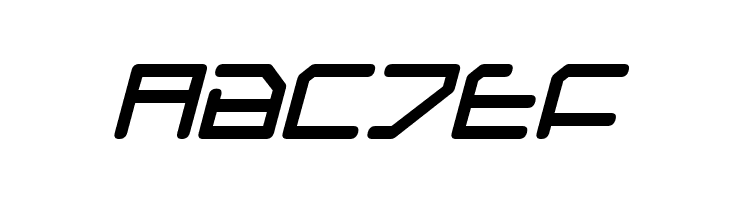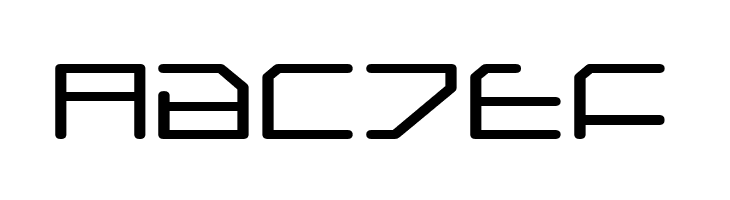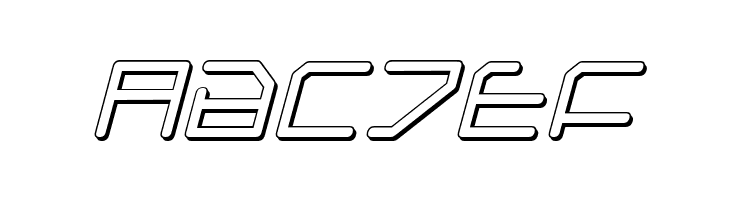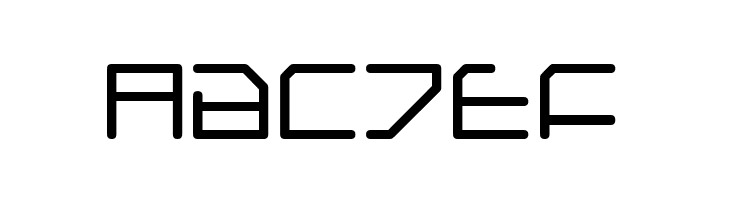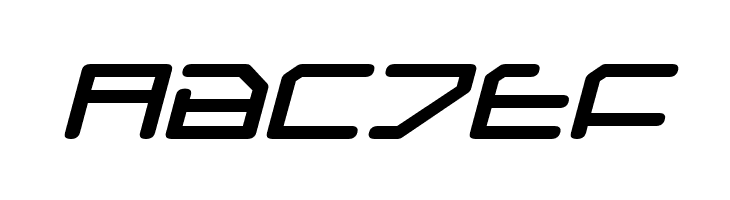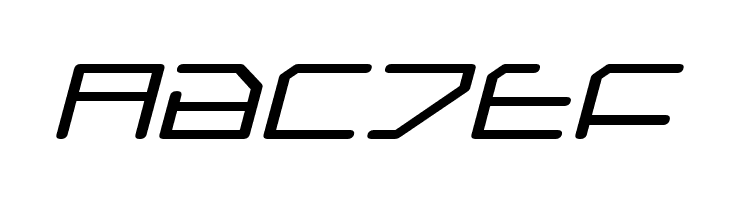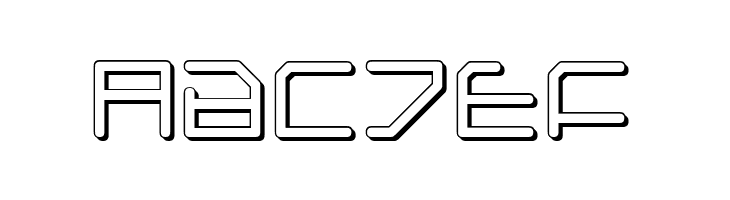
Kingsley Font
- Font: Kingsley
A futuristic, geometric italic font with clean, angular lines.
A bold, italicized font with a futuristic and angular design.
A futuristic, geometric font with clean lines and expanded spacing.
A futuristic, geometric font with a shadow effect and italicized slant.
A futuristic, geometric font with bold, angular lines and a modern appeal.
A bold, expanded, and italic geometric font with a futuristic style.
A futuristic, geometric font with expanded width and italic slant.
A futuristic, geometric font with a hollow outline style.